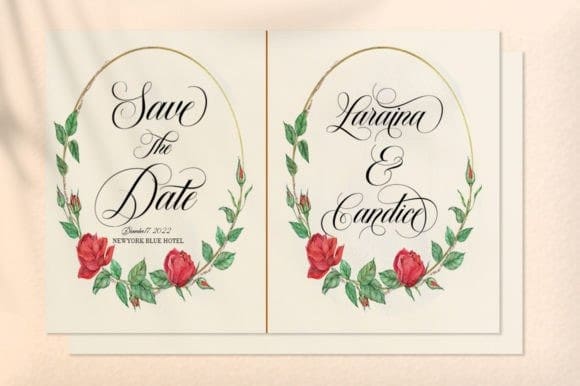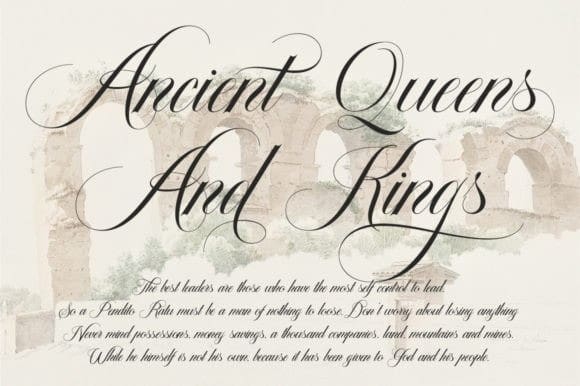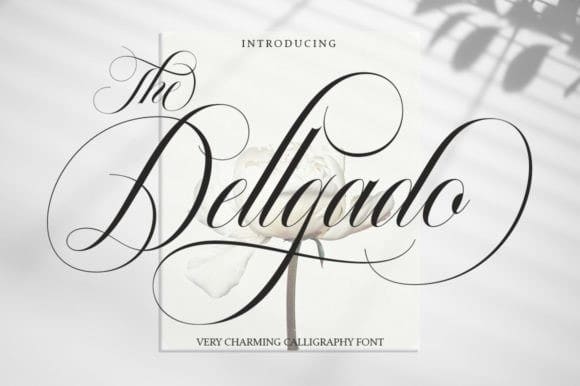
The Dellgado Font
The Dellgado Font, feels equally charming and elegant. It looks stunning on wedding invitations, thank you cards, quotes, greeting cards, logos, business cards, and every other design which needs an exquisite handwritten touch.